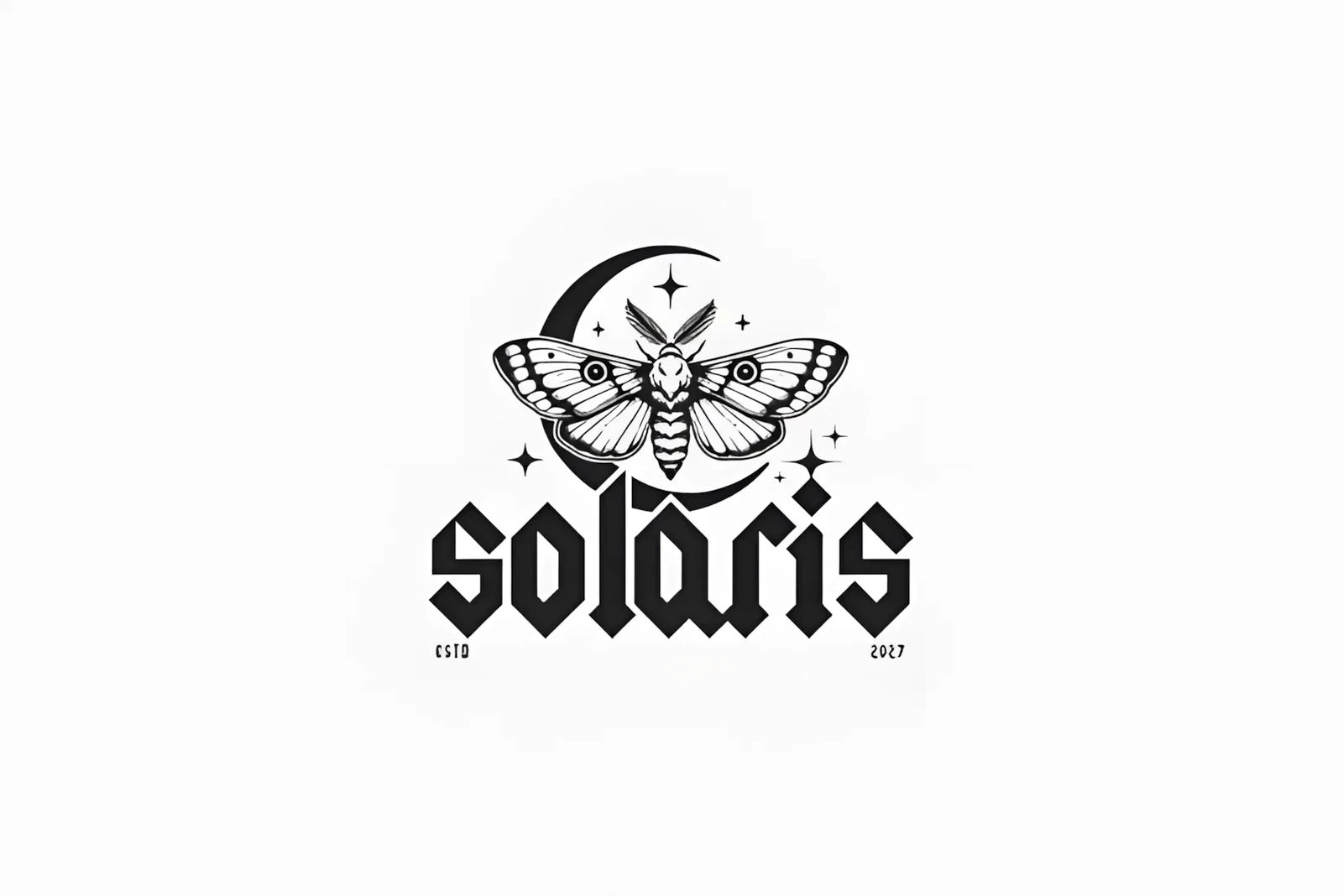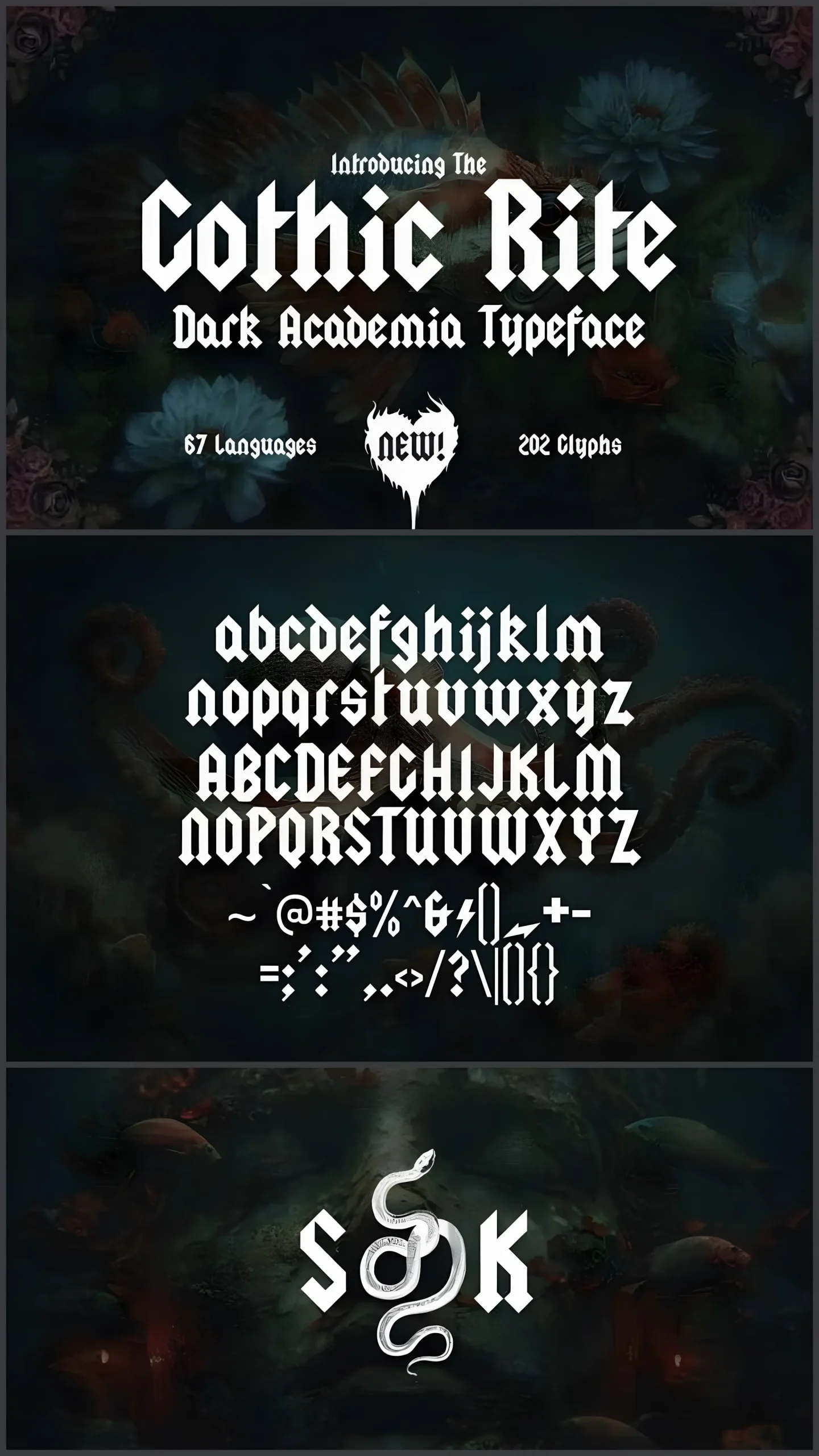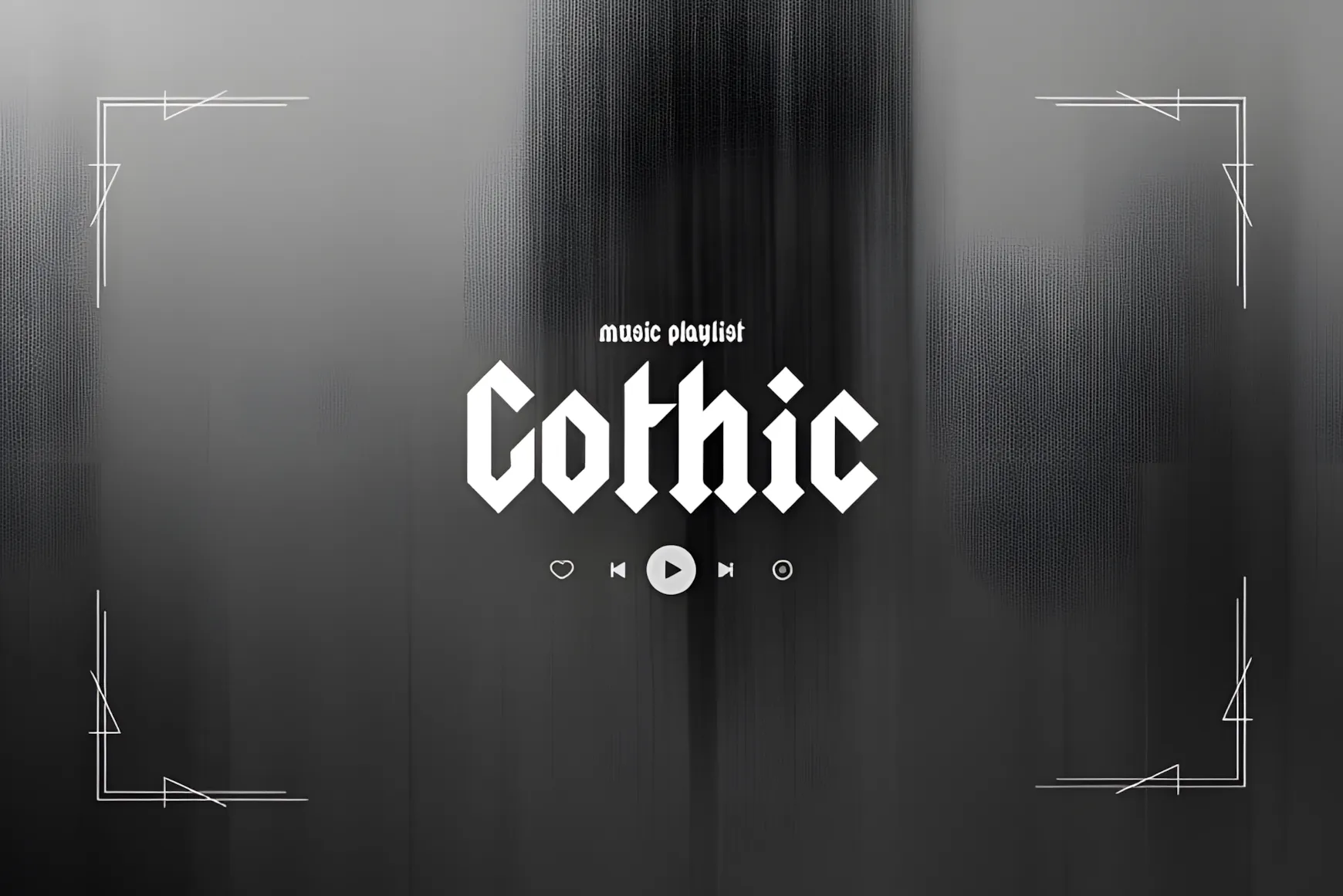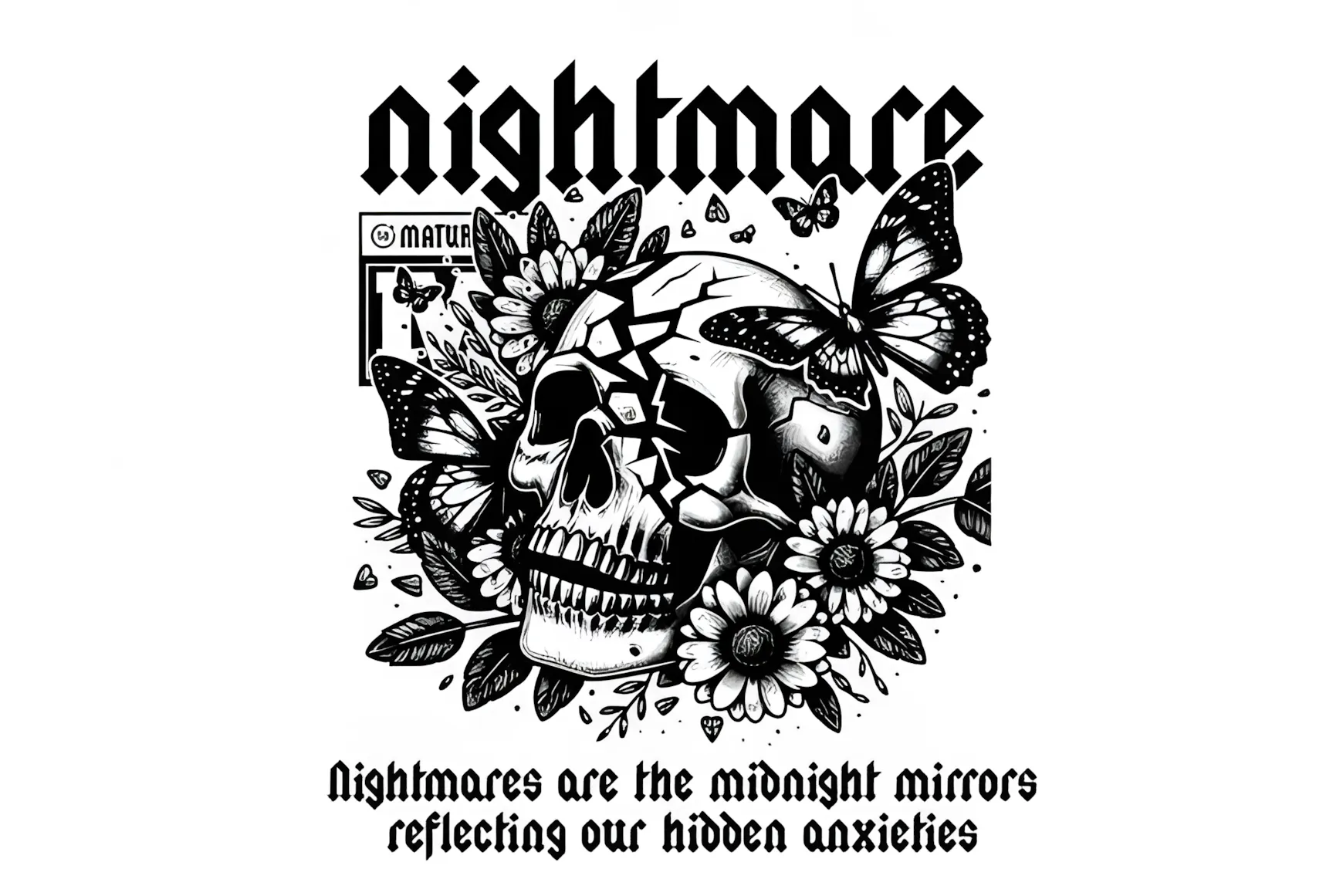
Some gothic fonts feel locked in the past, closely copying medieval scripts without offering anything new. The Gothic Rite Font approaches blackletter from a more conceptual angle. It draws inspiration from dark academia, ritual symbolism, and gothic architecture, turning typography into a visual statement rather than a historical imitation.
This is a blackletter display typeface built for dramatic, intellectual, and atmospheric projects. Every letter carries weight, structure, and intention, making the font feel ceremonial and expressive.
Visual Style and First Impression
The Gothic Rite Font delivers a strong and immediate presence. The letterforms are sharp, geometric, and carefully constructed. Instead of soft curves, the font relies on pointed edges and solid forms that echo cathedral architecture and ancient manuscripts.
There is a sense of discipline in the design. Each character feels deliberate, as if carved rather than written. This gives the font a serious, moody tone that fits themes of mystery, rebellion, and intellect.
The overall impression is dark but refined. It feels gothic without becoming chaotic or overly decorative.
A Blackletter Typeface With Modern Intent
Although rooted in traditional blackletter forms, The Gothic Rite Font feels modern in execution. The spacing, proportions, and structure are carefully balanced, which keeps the text readable despite its dramatic style.
The font includes an extensive character set with uppercase and lowercase letters, numbers, punctuation, and symbols. This makes it suitable not only for titles but also for complex layouts where consistency matters.
Support for multiple languages adds flexibility, allowing the font to be used in international projects without sacrificing design integrity.
Designed for Dark Academia and Gothic Themes
The Gothic Rite Font feels especially at home in projects inspired by:
- dark academia
- gothic literature
- occult symbolism
- medieval and renaissance aesthetics
- intellectual and ritualistic themes
It evokes images of old libraries, ancient texts, and scholarly rebellion. This makes it a natural choice for designs that aim to feel thoughtful, mysterious, and slightly unsettling.
Practical Design Applications
Book Covers and Editorial Design
One of the strongest use cases for The Gothic Rite Font is book and editorial design. It works beautifully on covers for:
- gothic novels
- fantasy books
- horror literature
- academic or conceptual publications
Used as a headline or title font, it sets the tone immediately and signals depth and seriousness.
Posters, Titles, and Visual Headlines
As a display font, The Gothic Rite excels in large text. Posters, titles, and feature headlines benefit from its dramatic structure and strong contrast.
It works especially well for:
- event posters
- exhibition titles
- academic posters
- cultural or artistic announcements
The font commands attention without relying on extra visual effects.
Logos and Branding
For brands that lean into dark, intellectual, or alternative aesthetics, this font offers a strong typographic identity. Logos created with The Gothic Rite Font feel authoritative and symbolic.
It is particularly effective for:
- alternative fashion brands
- music projects
- cultural publications
- conceptual studios
Used carefully, it creates a memorable and serious brand presence.
Music, Fashion, and Creative Media
The font’s dramatic tone makes it suitable for band logos, album covers, and fashion editorials. It supports themes of intensity, emotion, and visual storytelling without feeling generic.
In these contexts, typography becomes part of the narrative rather than just a label.
Readability and Usage Notes
The Gothic Rite Font is designed as a display typeface. It performs best in:
- titles
- headlines
- short phrases
- featured text
It is not intended for long paragraphs. Pairing it with a clean serif or sans-serif font for body text helps maintain balance and readability.
Spacing is important. Giving the letters room to breathe allows the sharp details and structure to remain clear.
Emotional Tone and Design Impact
The emotional tone of The Gothic Rite Font is dark, intellectual, and ceremonial. It communicates mystery, authority, and depth rather than friendliness or playfulness.
It is not meant for everyday text, but as a display blackletter font, it delivers strong atmosphere and identity.
The Gothic Rite Font is more than a decorative blackletter typeface. It is a visual language rooted in intellect, ritual, and gothic tradition, refined through modern structure and clarity.
For designers seeking a font that communicates mystery, seriousness, and dark elegance, this typeface offers a powerful and expressive solution. Used thoughtfully, it transforms typography into atmosphere and gives designs a distinctive, memorable voice